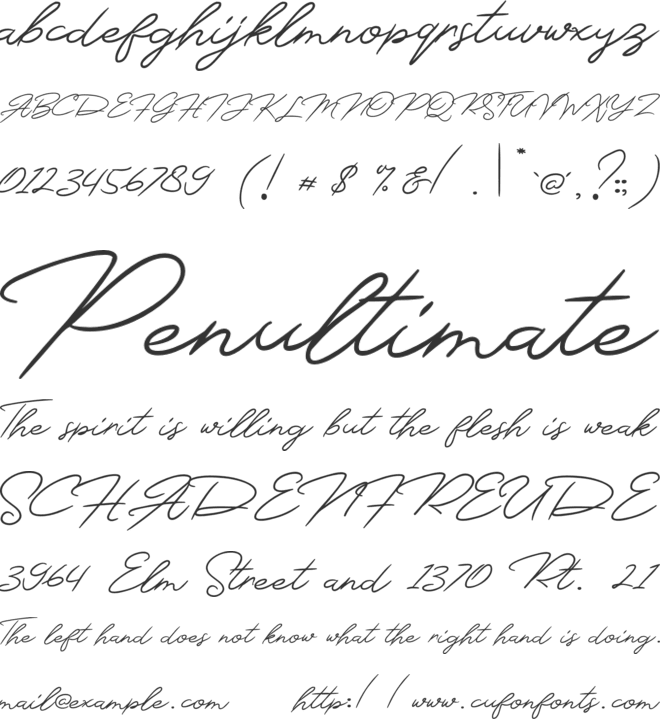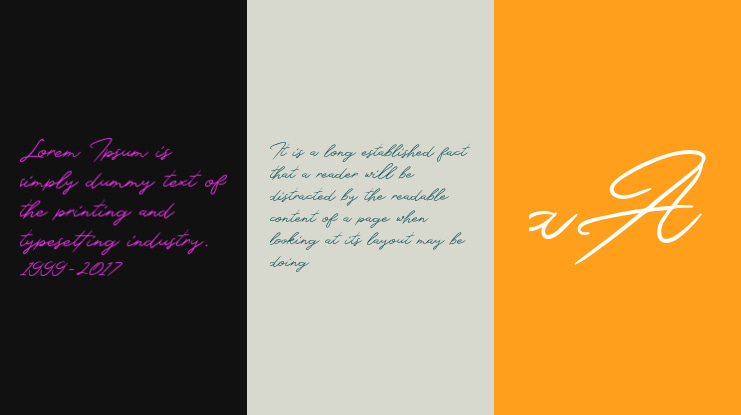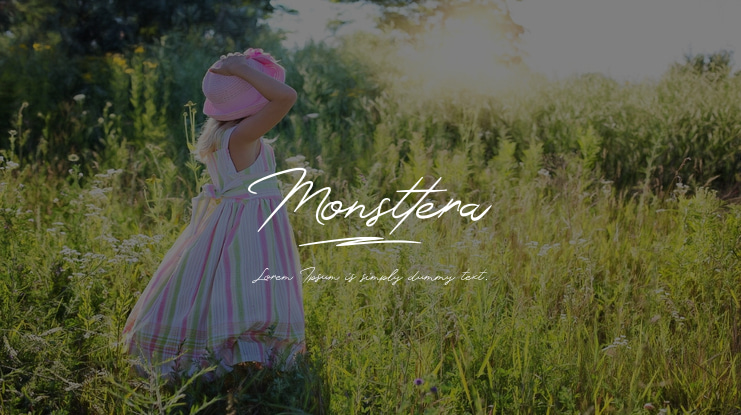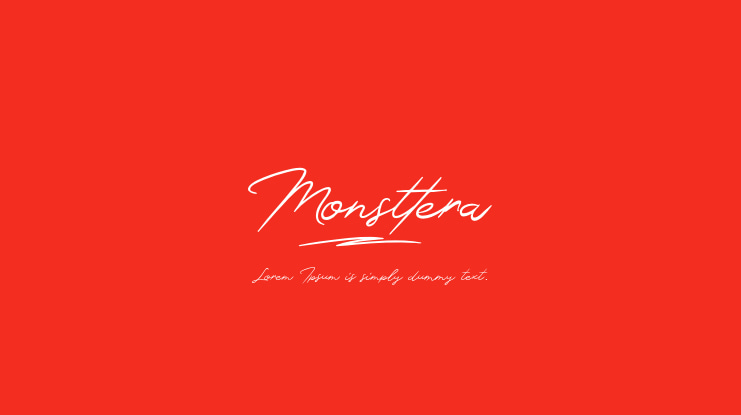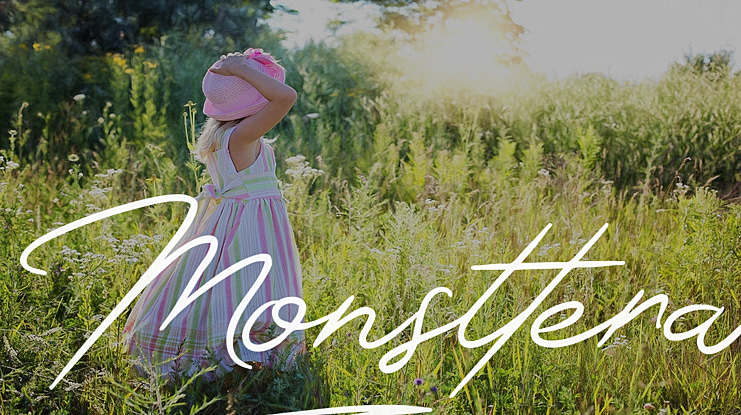
Monsttera Font
This enchanting font will turn any creative idea into a true standout. Perfect fit for all of your logos, branding, social media, etc. Get creative with its unique playfulness, and use it to brighten up any crafting project!